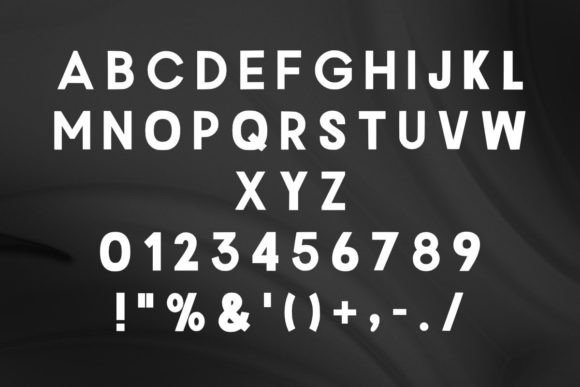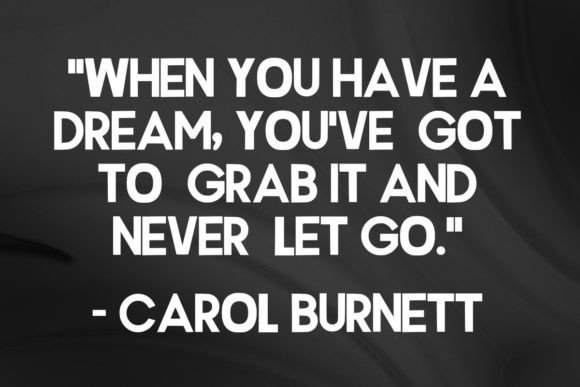
The Ultimate Font for Creative Projects: A Deep Dive into Fivito
I’ll never forget the time I was working on a branding project for a trendy new coffee shop. My client was adamant that they wanted a font that was modern, yet approachable; elegant, yet playful. I spent hours scouring font libraries, but nothing seemed quite right. That was until I stumbled upon Fivito, an all-caps sans serif font that has since become my go-to for a wide range of creative projects.
An Honest Review of Fivito
What I Love About Fivito
- ✨ Versatility: Fivito is one of those rare fonts that works beautifully in a wide range of contexts, from logos and branding to web headings and more.
- ✅ Clean and Modern Aesthetic: The font’s sleek lines and minimalist design make it perfect for projects that require a professional, contemporary look.
- 💡 Excellent Legibility: Even at smaller sizes, Fivito remains crisp and easy to read, making it ideal for body text and headings.
While Fivito is an exceptional font, it’s not without its quirks. For example:
- 🤔 Limited Lowercase Options: As an all-caps font, Fivito doesn’t offer traditional lowercase letters. However, this can actually be a design advantage in certain contexts.
- ⚠️ Glyph Support: While Fivito supports a wide range of glyphs, some users may find the selection limited compared to other fonts.
- Experiment with OpenType features like ligatures and stylistic alternates to add visual interest to your text.
The Story Behind Fivito
While the origins of Fivito are shrouded in mystery, it’s clear that the font was designed with versatility and modernity in mind. The creator of Fivito drew inspiration from a range of sources, including industrial design and digital interfaces. The result is a font that’s both elegant and approachable – perfect for a wide range of creative projects.
Q: What is Fivito?
A: Fivito is an all-caps sans serif font designed for use in a wide range of creative projects, from logos and branding to web headings and more.
Q: Is Fivito suitable for body text?
A: While Fivito is primarily designed for headings and titles, it can be used for body text in certain contexts. However, its all-caps design may make it less suitable for longer blocks of text.
Q: Does Fivito support OpenType features?
A: Yes, Fivito supports a range of OpenType features, including ligatures, stylistic alternates, and more.